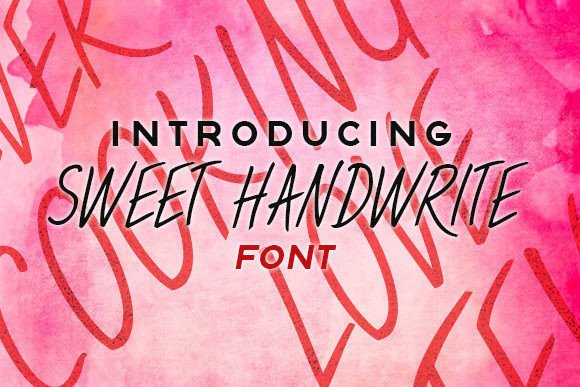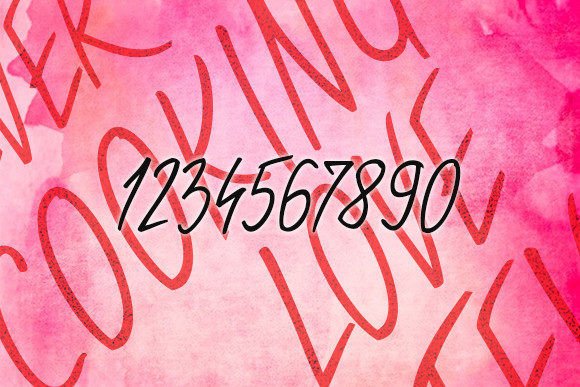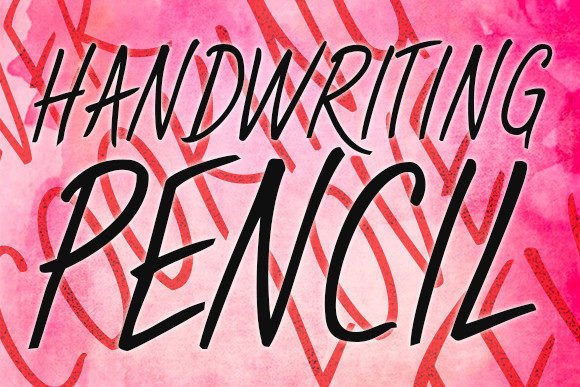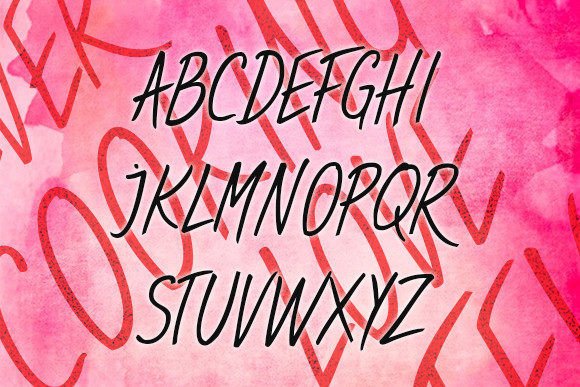
Sweet Handwrite Font
About Sweet Handwrite Font
Sweet Handwrite is a fun and quirky handwritten font that brings a lively and playful vibe to any design. Its unique and casual style makes it an excellent choice for a wide variety of creative projects. Whether you’re designing crafts, digital graphics, presentations, or greeting cards, Sweet Handwrite font has the charm and versatility to become your go-to typeface for adding a personal, handcrafted touch.
Playful and Versatile Design
Sweet Handwrite font stands out for its whimsical and friendly letterforms. The playful curves and imperfect strokes give it an authentic, human feel that instantly connects with viewers. This font works wonderfully to inject energy and personality into your work, making it perfect for brands, DIY projects, social media, and personal designs that want to showcase creativity with a lighthearted flair.
Ideal for Various Creative Applications
The versatility of Sweet Handwrite font allows it to shine in many design contexts. Use it for creating unique greeting cards that convey warmth and friendliness. It’s also ideal for digital designs such as banners, posters, and social media posts where a casual yet engaging tone is needed. Additionally, this font fits perfectly with handmade crafts, packaging designs, invitations, and much more.
Easy to Use and Readable
Despite its quirky nature, Sweet Handwrite font remains highly legible across sizes, ensuring your message is clear and attractive. The natural flow of its letters helps maintain readability, which is crucial when working on materials like presentations and marketing collateral. This balance between fun and functionality makes it a favorite choice for both beginners and professional designers.
Why Choose Sweet Handwrite Font?
Choosing Sweet Handwrite means selecting a font that effortlessly combines charm and professionalism. It’s perfect for designers and creatives who want to add a warm, personal touch to their projects without sacrificing clarity or style. This font encourages creativity and can elevate simple designs into memorable works of art.
Enhance Your Projects with Sweet Handwrite
Bring your creative ideas to life with Sweet Handwrite font’s playful and quirky style. Whether you’re working on branding, social media content, handmade crafts, or personal projects, this font provides the perfect handwritten look to make your designs stand out. Add Sweet Handwrite to your font library today and watch your projects gain an inviting, unique personality.